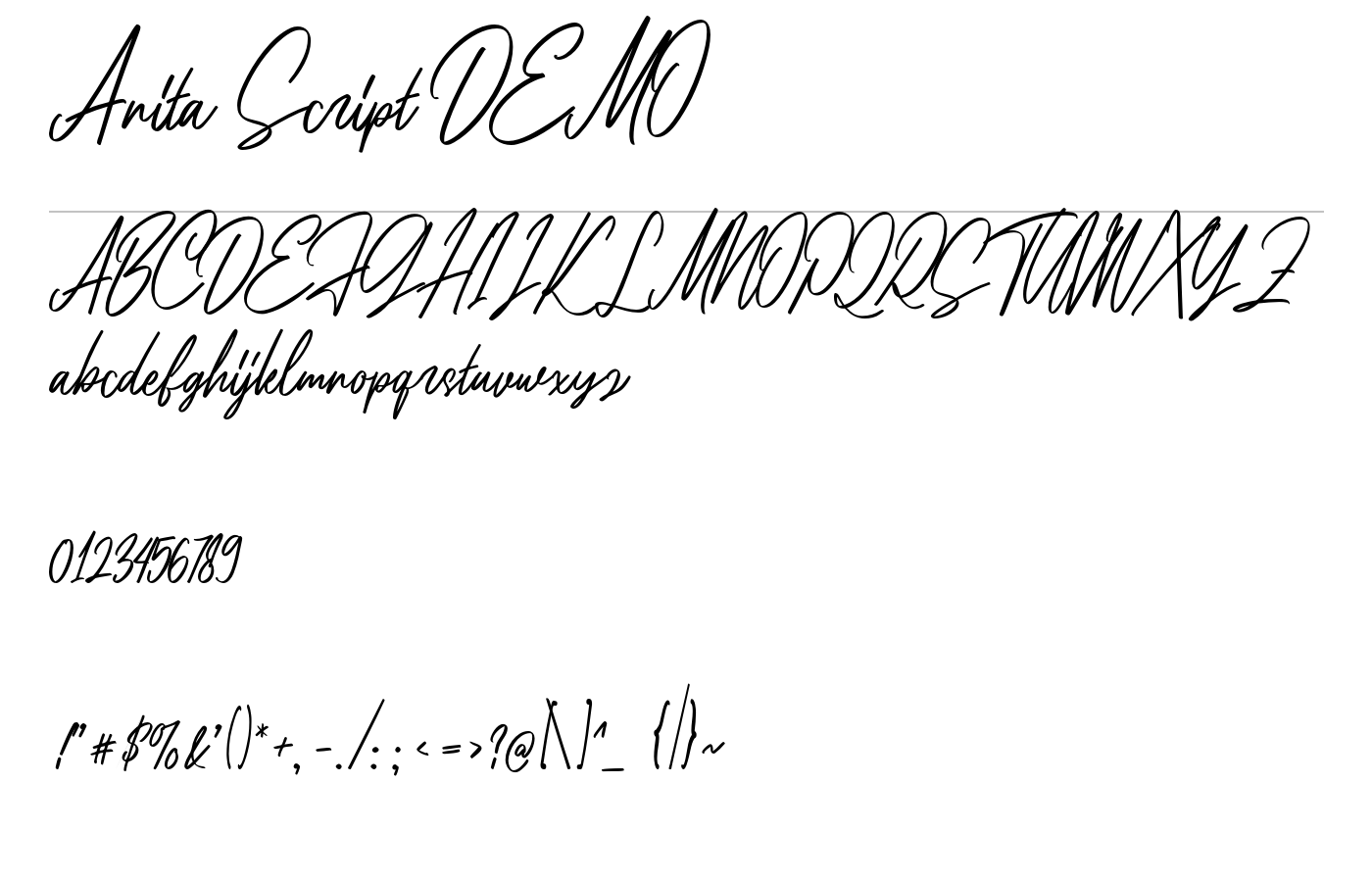
Anita Script DEMO is an elegant, flowing script font with a slender, handwritten style that exudes sophistication and charm. Its narrow, slightly slanted letterforms with fine, smooth strokes make it perfect for luxury branding, invitations, and stylish headlines where a personal, refined touch is desired. This font works beautifully in projects that need a graceful and delicate aesthetic, lending a modern yet classic handwritten feel.
Anita Script DEMO Font